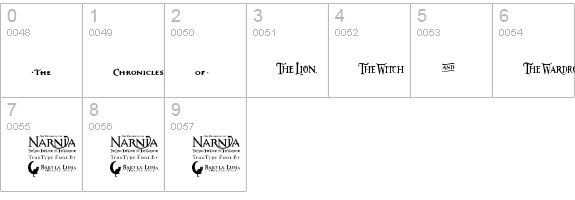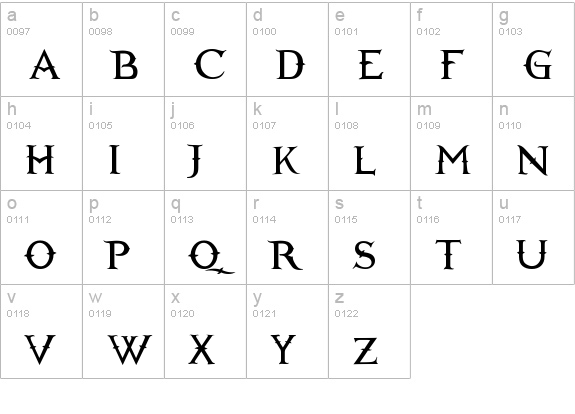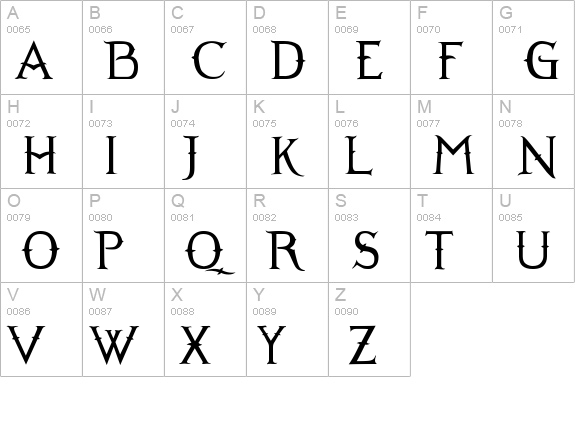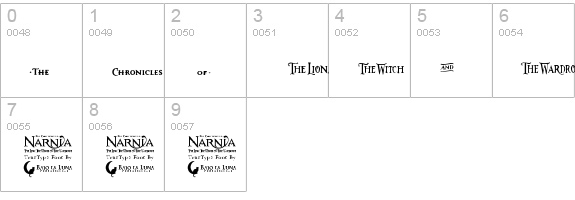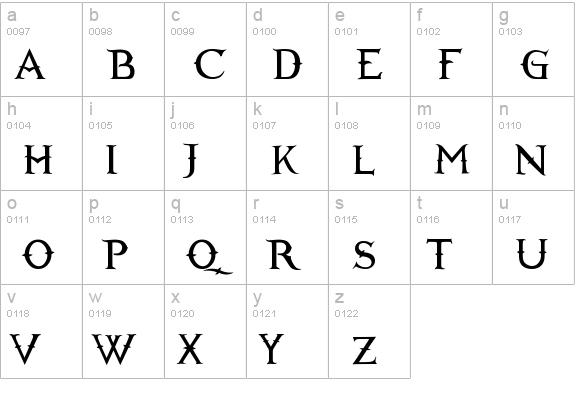
Narnia BLL Font Details
Introducing Narnia BLL, a captivating and enchanting font that will transport you to a world of magic and wonder. Crafted with meticulous attention to detail, this font is sure to mesmerize and captivate the imagination of anyone who lays their eyes upon it. Narnia BLL boasts a unique blend of elegant curves and intricate lines, creating a truly remarkable typographic experience. Its graceful and flowing letterforms effortlessly convey a sense of mystery and adventure, making it the perfect choice for any project that seeks to evoke a sense of awe and curiosity. But what sets Narnia BLL apart is its versatility and accessibility. This font is freely available to download at FontsMarket.com, allowing you to bring a touch of magic to your designs without any financial constraints. Whether you are a professional designer or simply someone with a passion for creativity, Narnia BLL offers you the opportunity to explore and express your imagination without limitations. With a wide range of alternate characters, ligatures, and swashes, Narnia BLL provides endless possibilities for customization and personalization. Whether you want to create captivating headlines, elegant invitations, or stunning logos, this font will effortlessly elevate your designs to new levels of sophistication and flair. Embrace the magic of Narnia BLL and let it ignite your creativity. Download this enchanting font for free at FontsMarket.com and embark on a typographic journey that will transport you to a world of limitless possibilities.